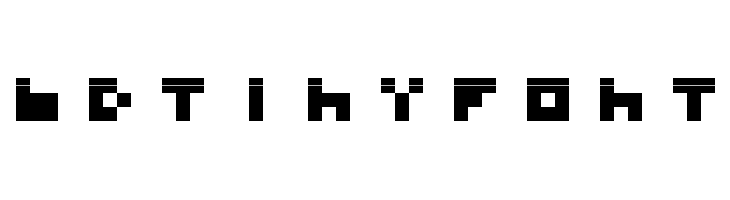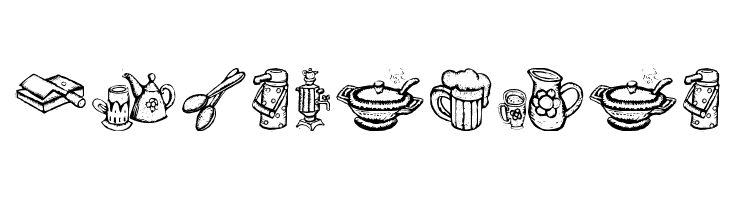
A playful set of hand-drawn food and drink illustrations with a sketch-like charm.
A bold, futuristic font with geometric, blocky characters and sharp edges.
An artistic, calligraphic font with flowing, curvilinear strokes.
A bold, geometric font with sharp angles and circular cutouts, offering a futuristic and edgy look.
A playful, bold font with whimsical, cartoon-like characters.
A bold, playful font with a handcrafted, whimsical style.
A whimsical and playful font with curly, looping strokes and decorative swirls.
A playful, hand-drawn font with thin, whimsical strokes.
A pixelated, digital-style font with a modern, technological feel.